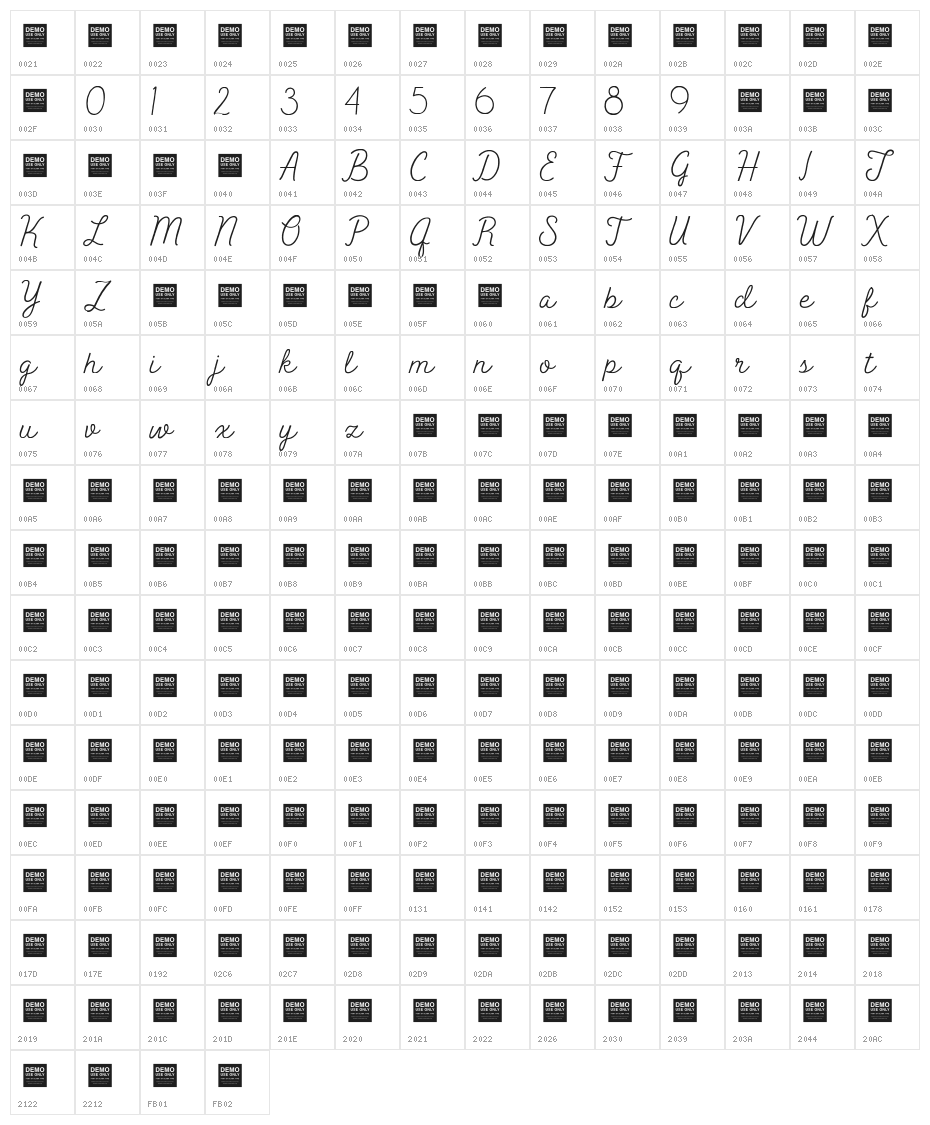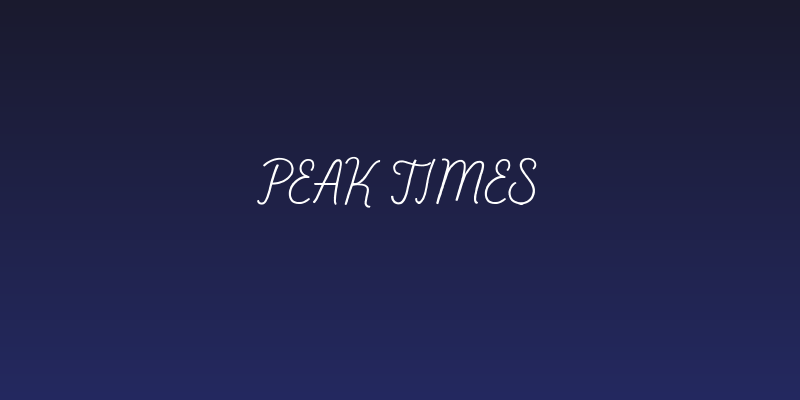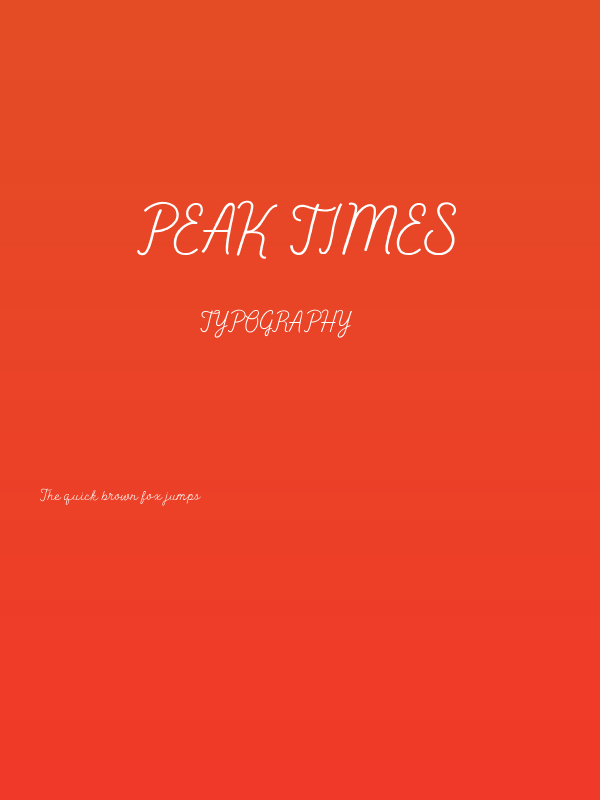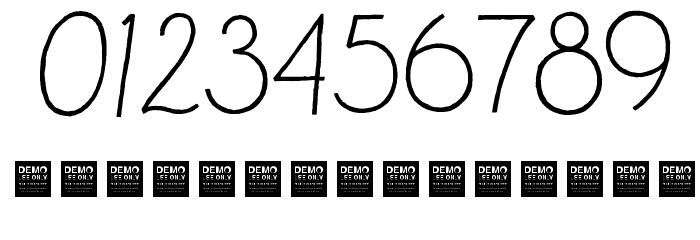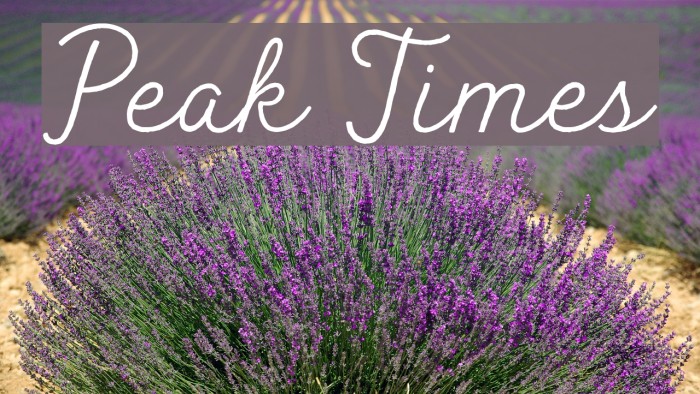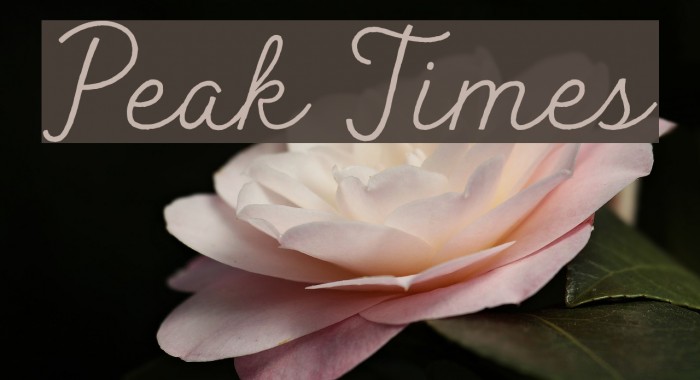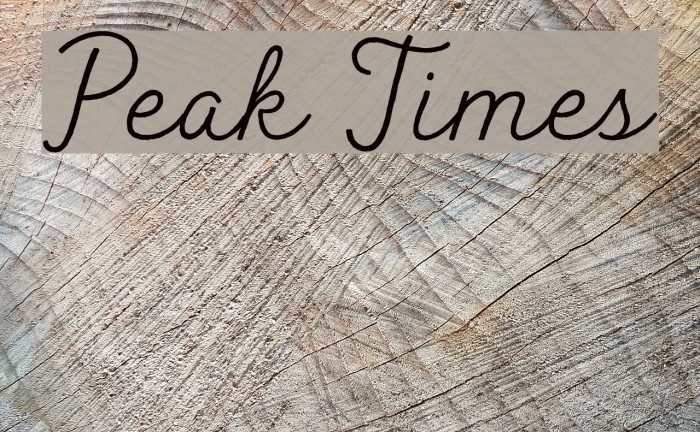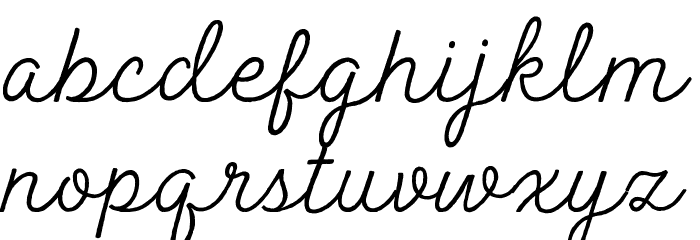
Peak Times Font
Peak Times Description
This font features a flowing, cursive style that mimics elegant handwriting. The letters are interconnected, creating a seamless and fluid appearance. The strokes are consistent in width, giving it a balanced and harmonious look. The uppercase letters are slightly taller than the lowercase, maintaining a uniform baseline. Numbers and special characters are designed to match the cursive style, ensuring a cohesive overall appearance. This font exudes a sense of sophistication and grace, making it suitable for formal and decorative applications.
| Proposed Projects | Ideal for wedding invitations, greeting cards, personal branding, and elegant logos. |